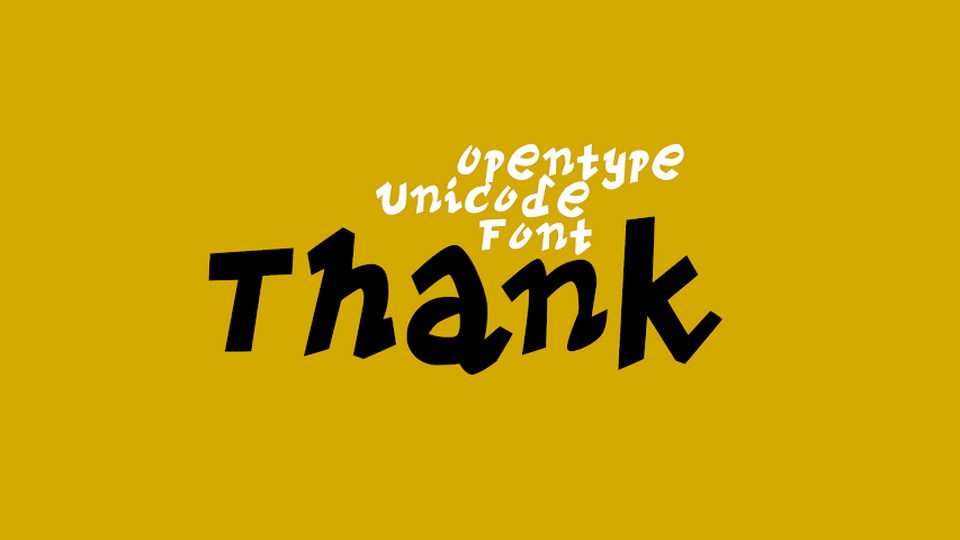
Download PVF Thank font, a fun handwritten typeface with a playful and friendly look. PVF Thank font is perfect for children book covers, poster, t-shirt, mug and other merchandise.
Designer: Petros Vasiadis